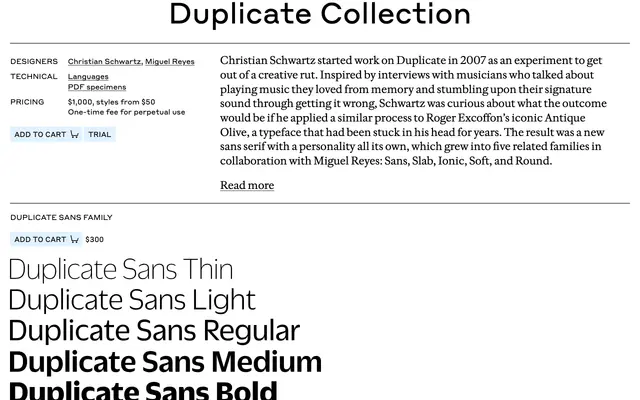
Duplicate Collection
Commercial Type · Christian Schwartz, Miguel Reyes
A multi-genre sans system by Schwartz and Reyes that started as a deliberate misremembering of Antique Olive, grown into Sans, Slab, Ionic, Soft and Round companions.
A sans serif system by Christian Schwartz and Miguel Reyes, started in 2007 as Schwartz's experiment in playing Roger Excoffon's Antique Olive from memory, the way musicians stumble on their sound by getting it wrong. The result was a sans with its own personality, grown over time into five related families: Sans, Slab, Ionic, Soft and Round, with a Sans Condensed cut for tighter measures. Suits editorial systems and identity work that wants a single voice flexed across multiple structural moods, from humanist sans to slab and softened script-adjacent forms.
Commercial Type describe Duplicate as a sans serif system started in 2007 by Christian Schwartz as a deliberate misremembering of Roger Excoffon's Antique Olive, grown in collaboration with Miguel Reyes into five related families: Sans, Slab, Ionic, Soft and Round, plus a Sans Condensed cut.